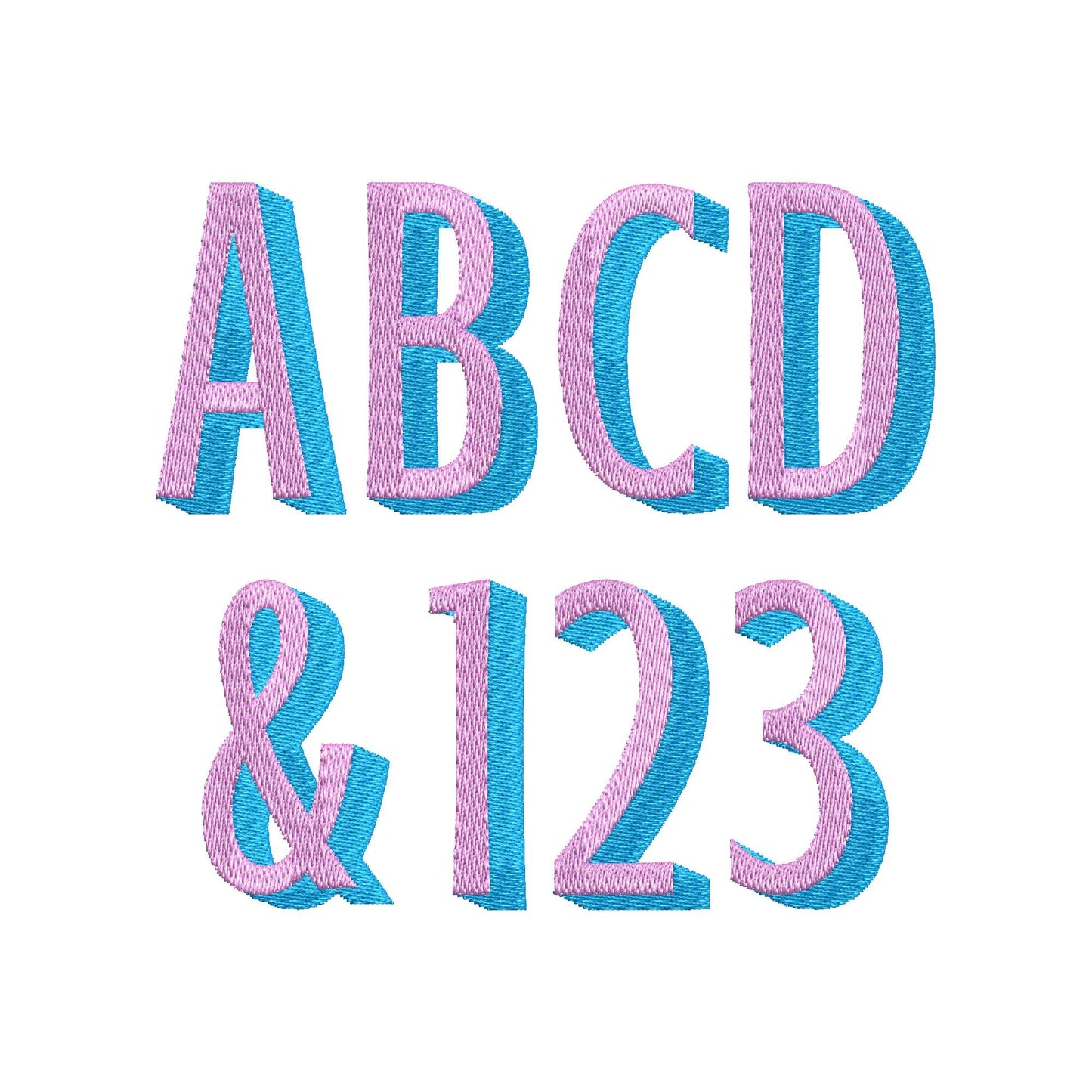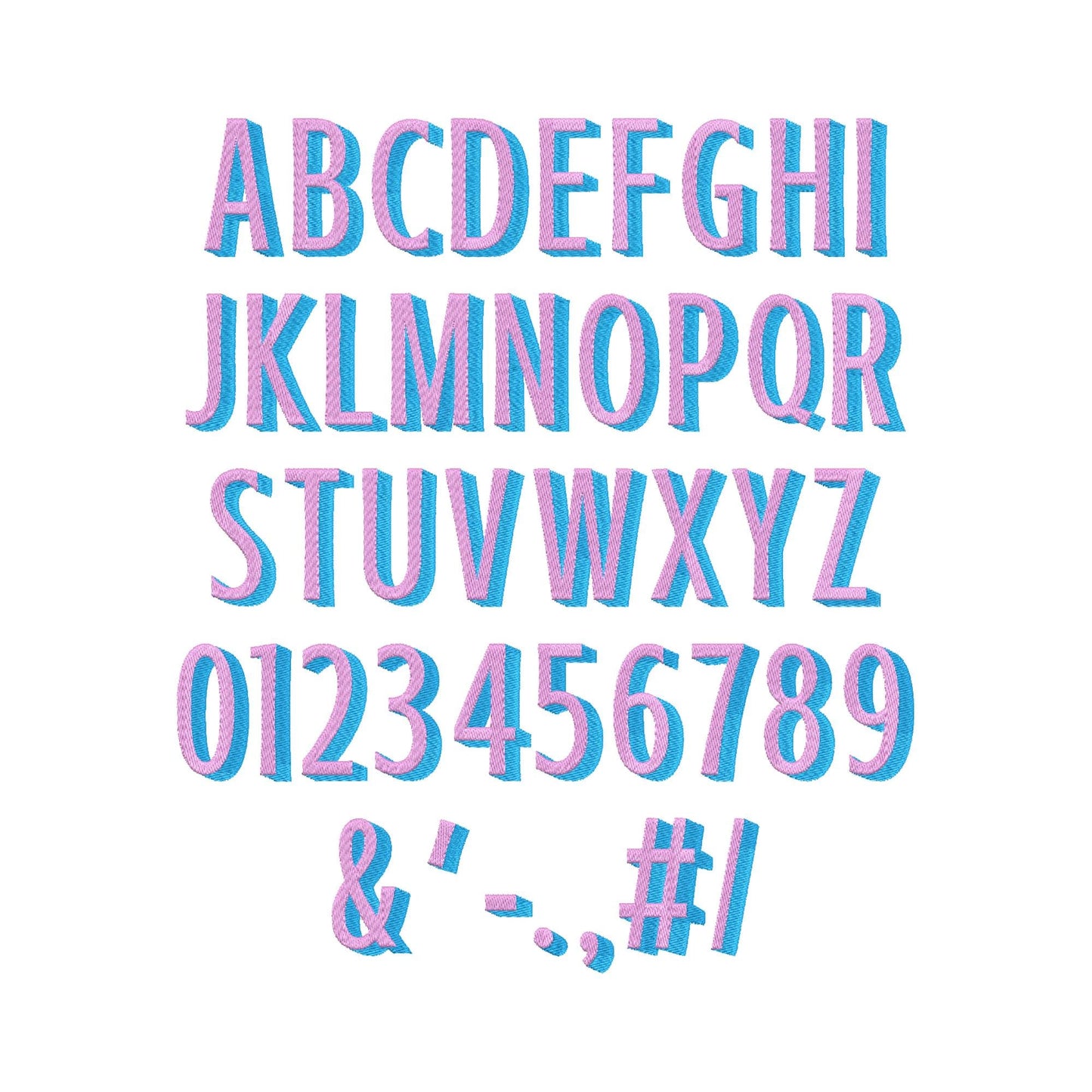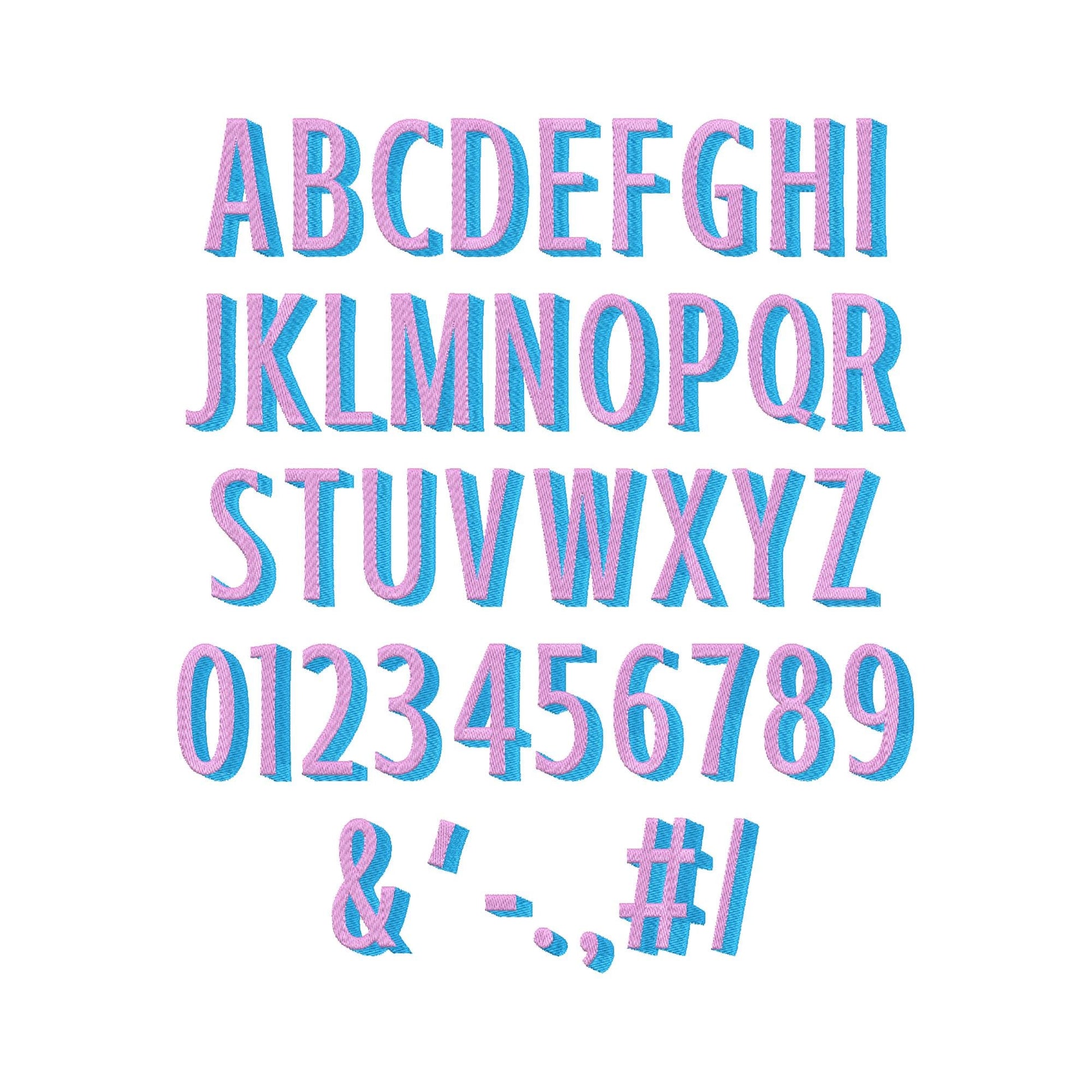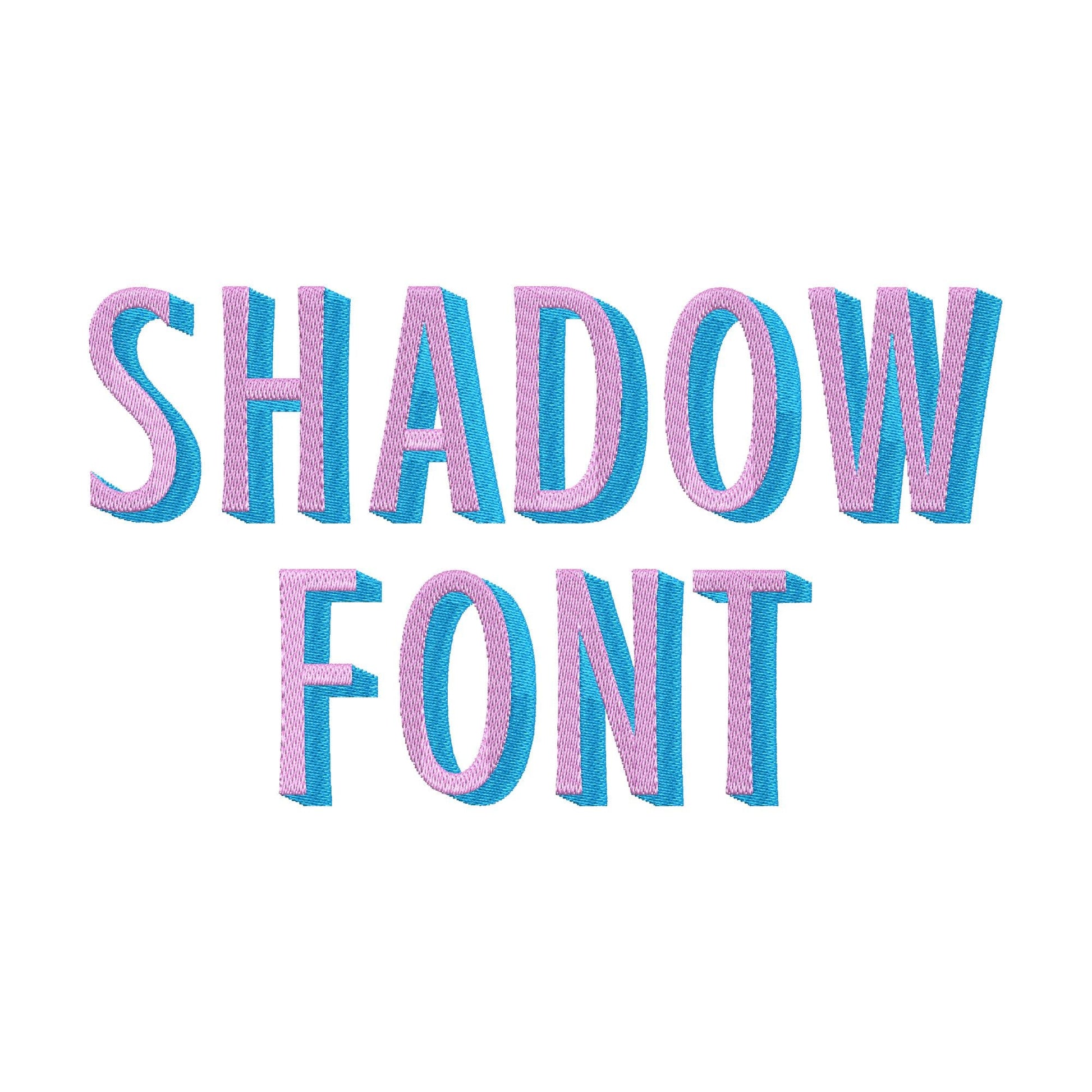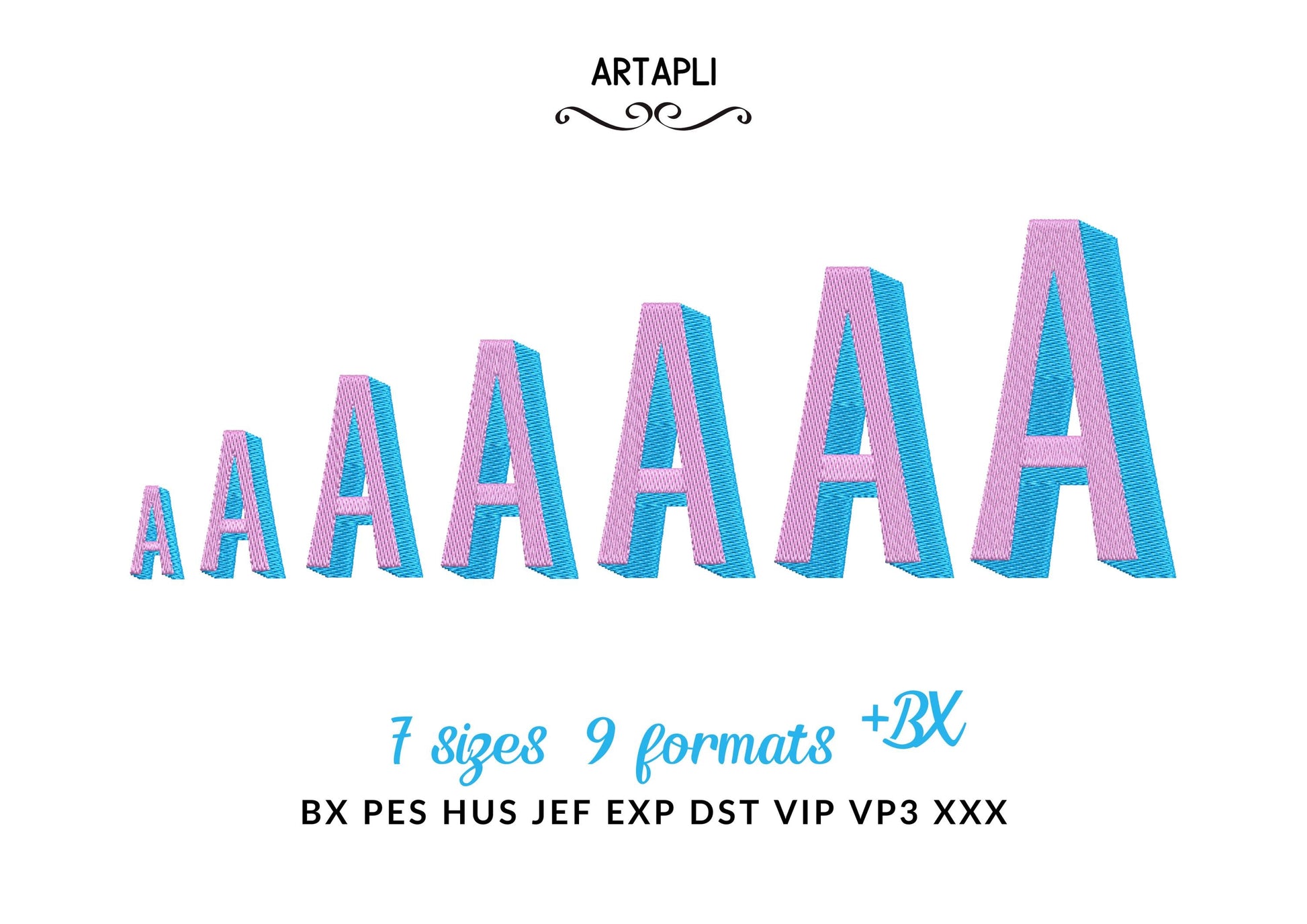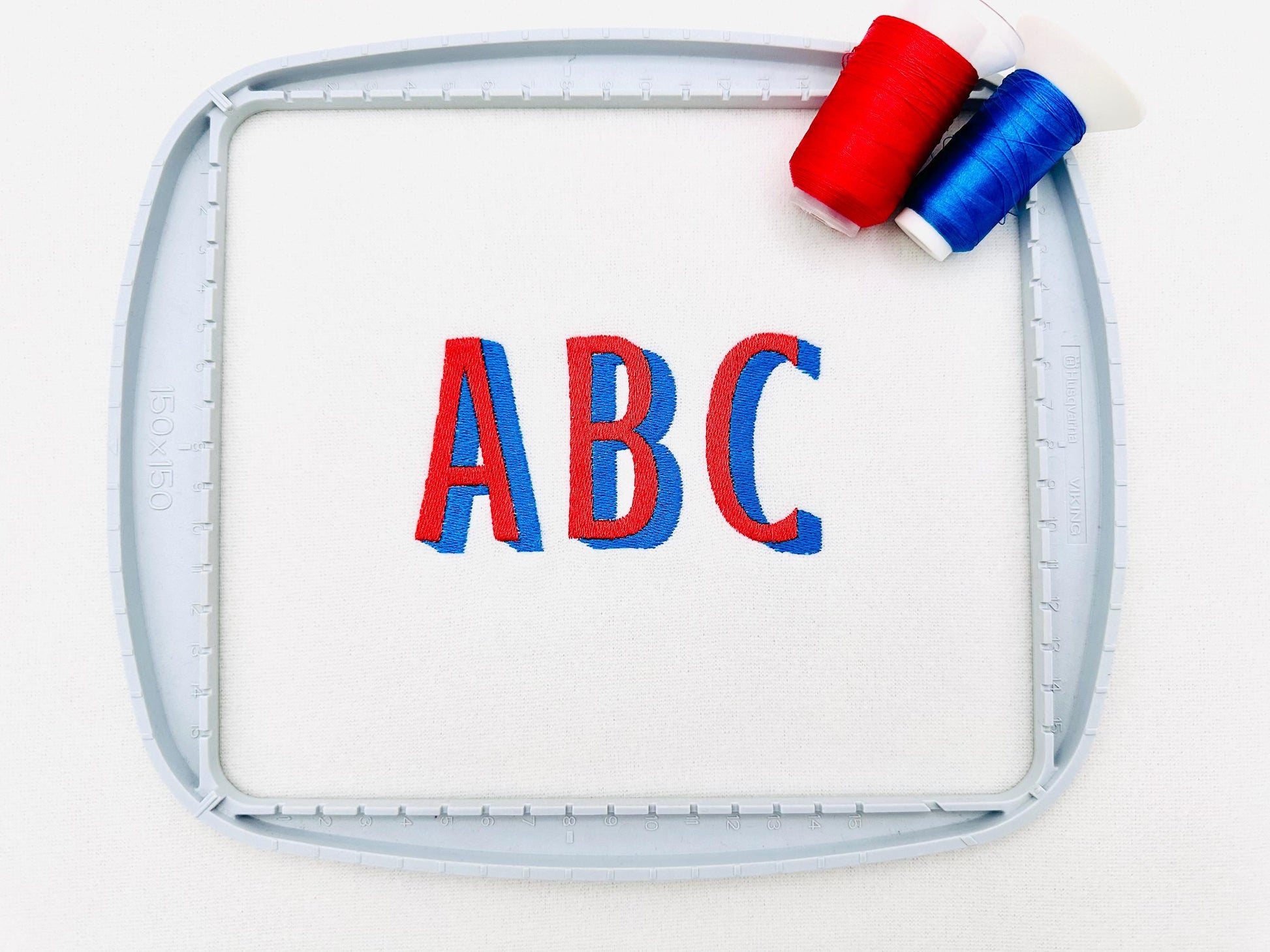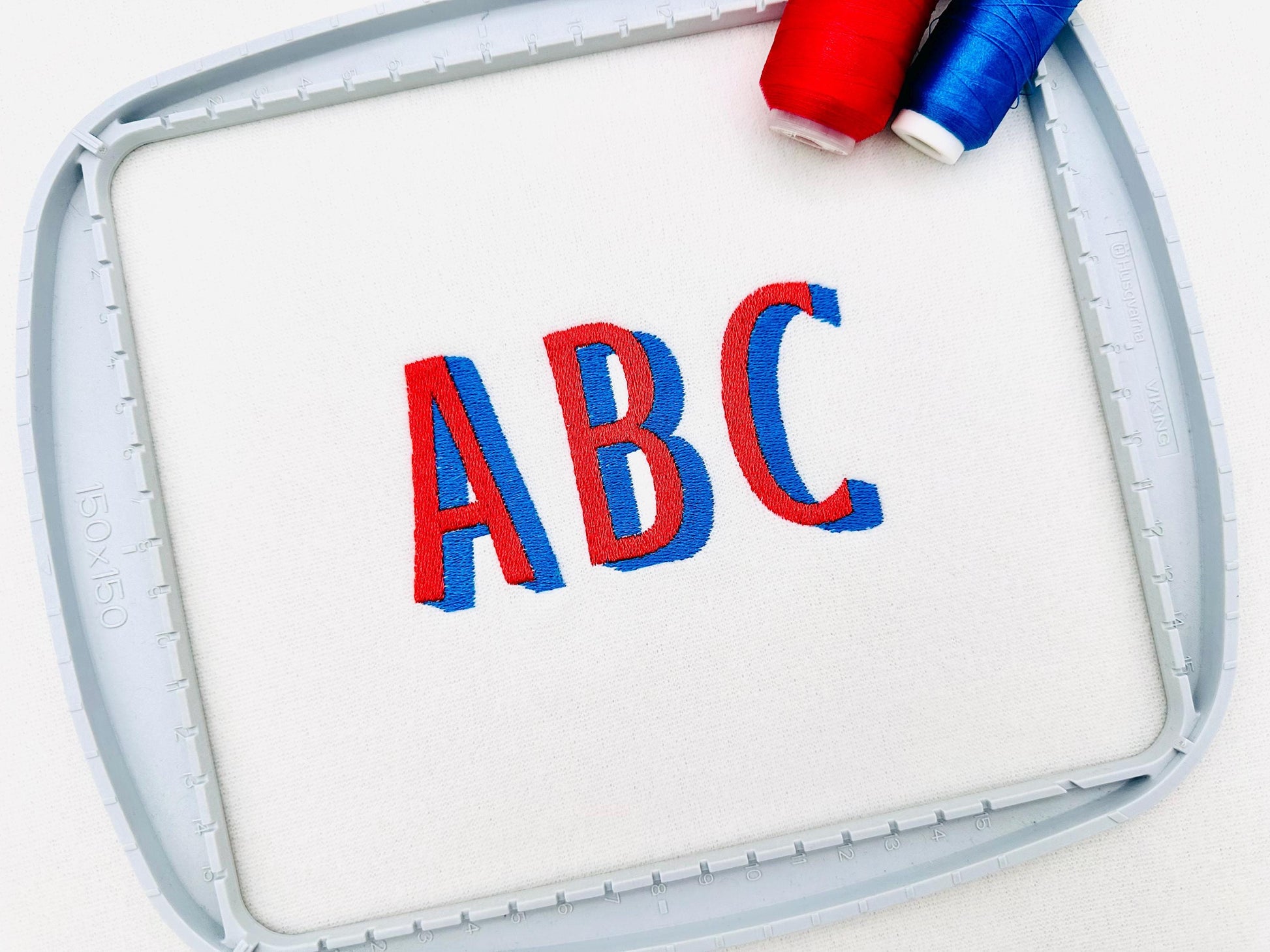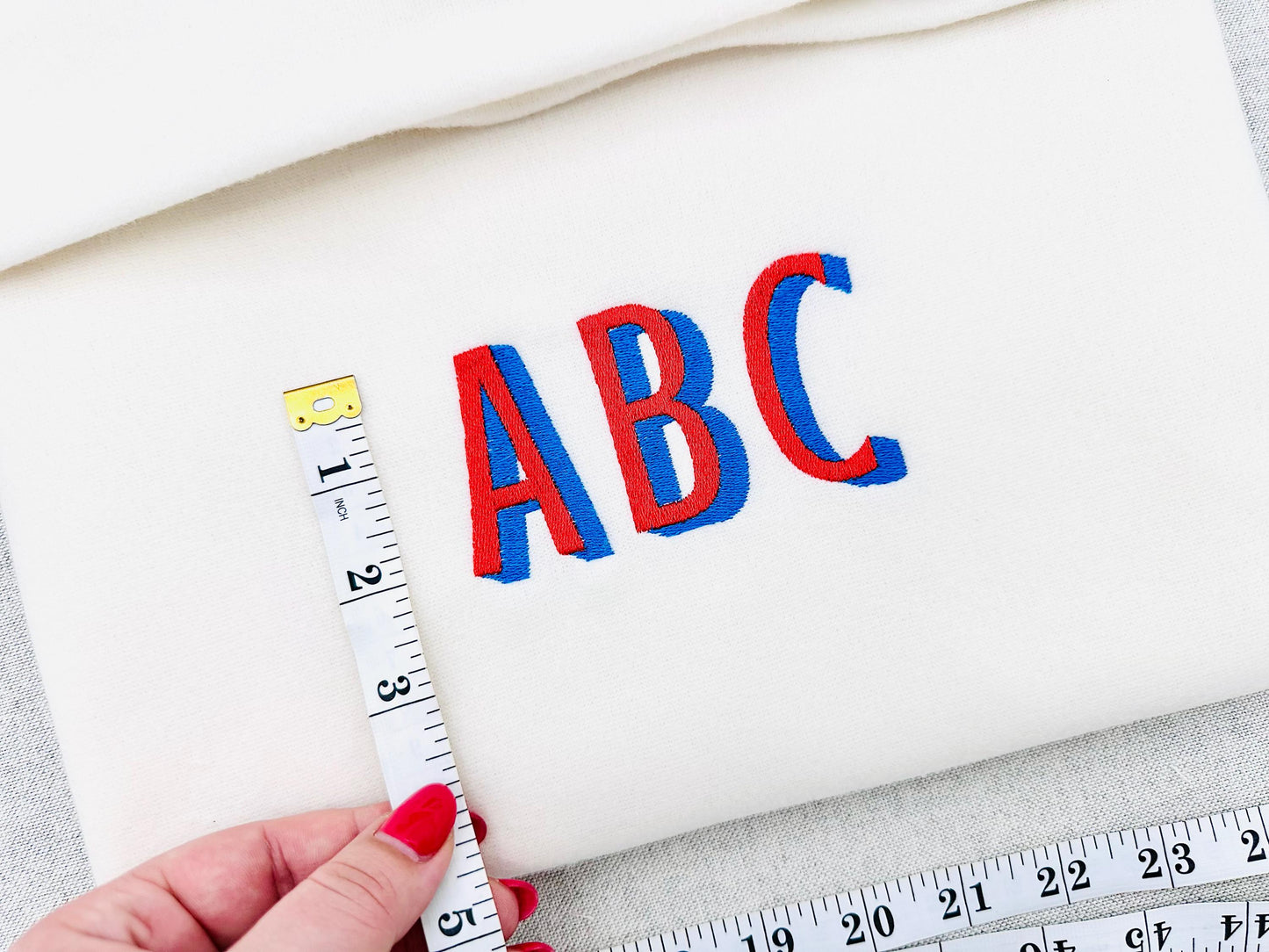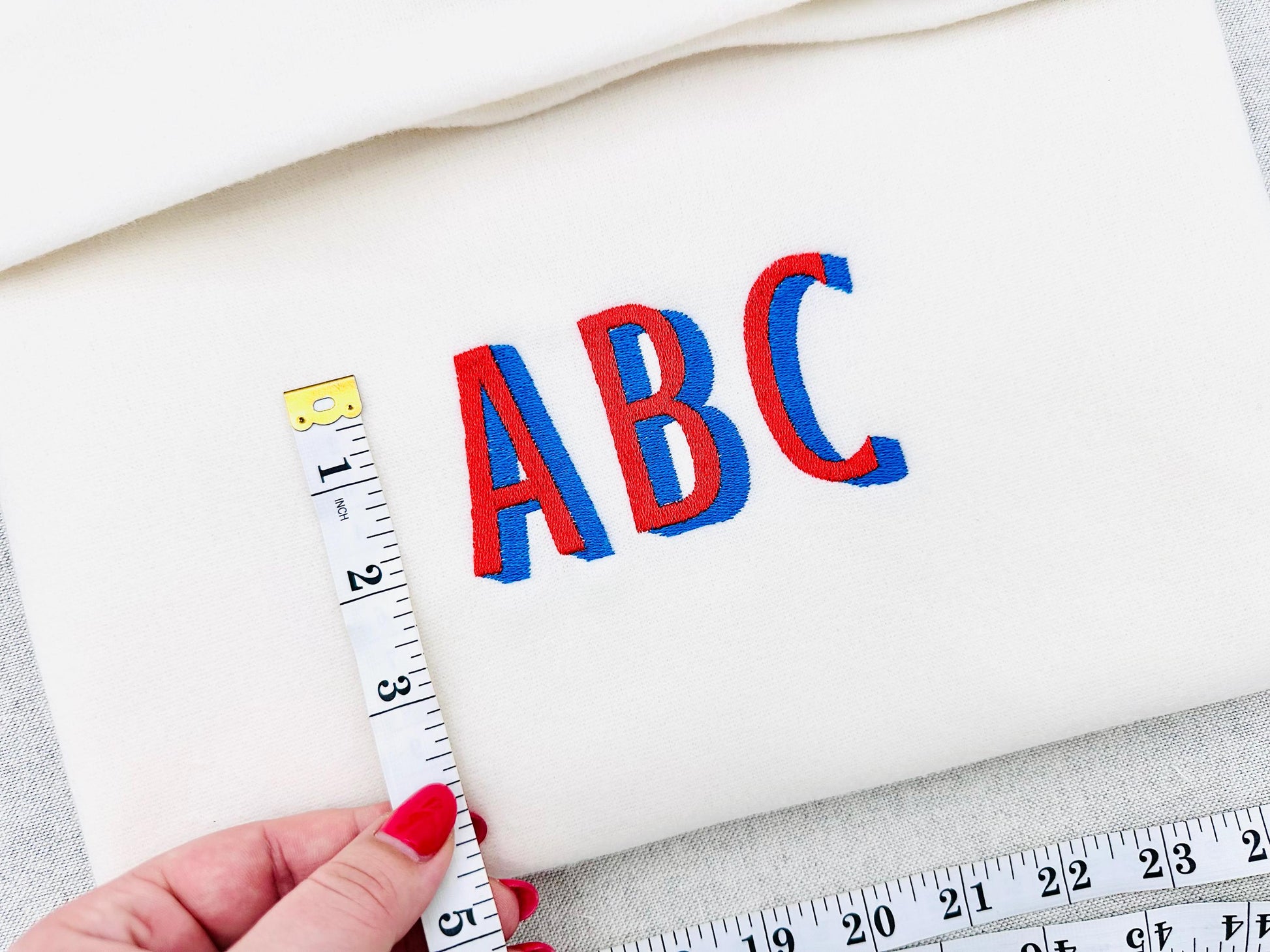
Or click to open the linkA narrow sporty block font in fill stitch with a shadow outline. Great for team names, monograms and numbers on shirts, caps and bags.
The letters come in seven sizes: 1, 1.6, 2.2, 2.6, 3, 3.4 and 3.9 inches. Includes uppercase letters A-Z, numbers 0-9 and punctuation.